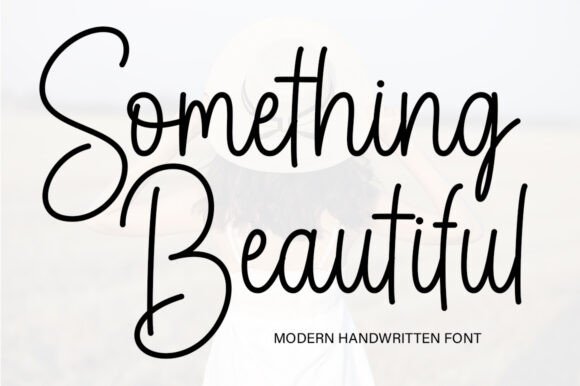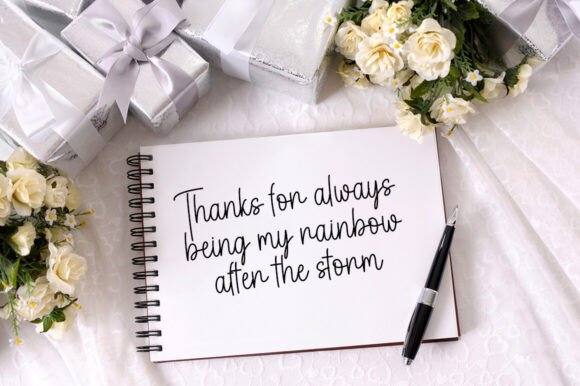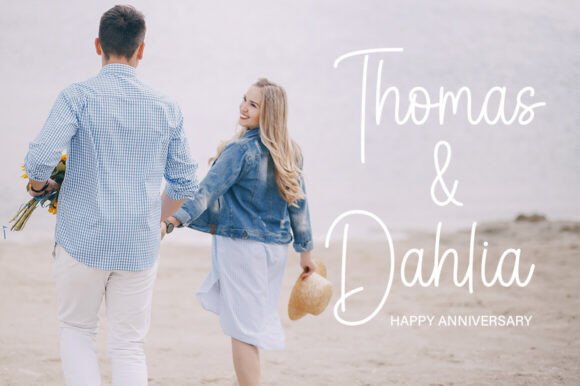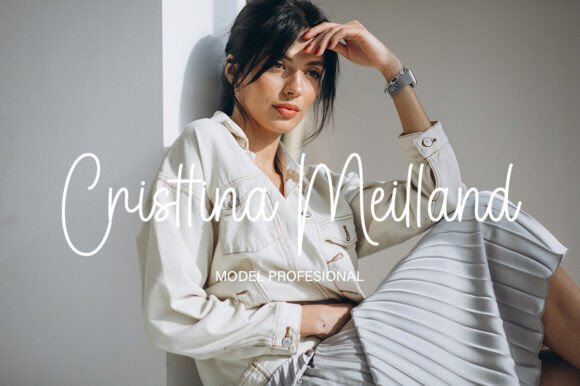
Something Beautiful Font: Elegant Handwritten Font for DIY & Branding
About the Something Beautiful Font
Unleash your creativity with Something Beautiful Font, a versatile font perfect for a wide range of applications. Something Beautiful is a lovely and timeless handwritten font. It is the best choice for creating eye catching logos, branding and quotes. Every letter has a unique and beautiful touch, which will make your design come alive!
Something Beautiful Font Usage Examples
Something Beautiful Font Example